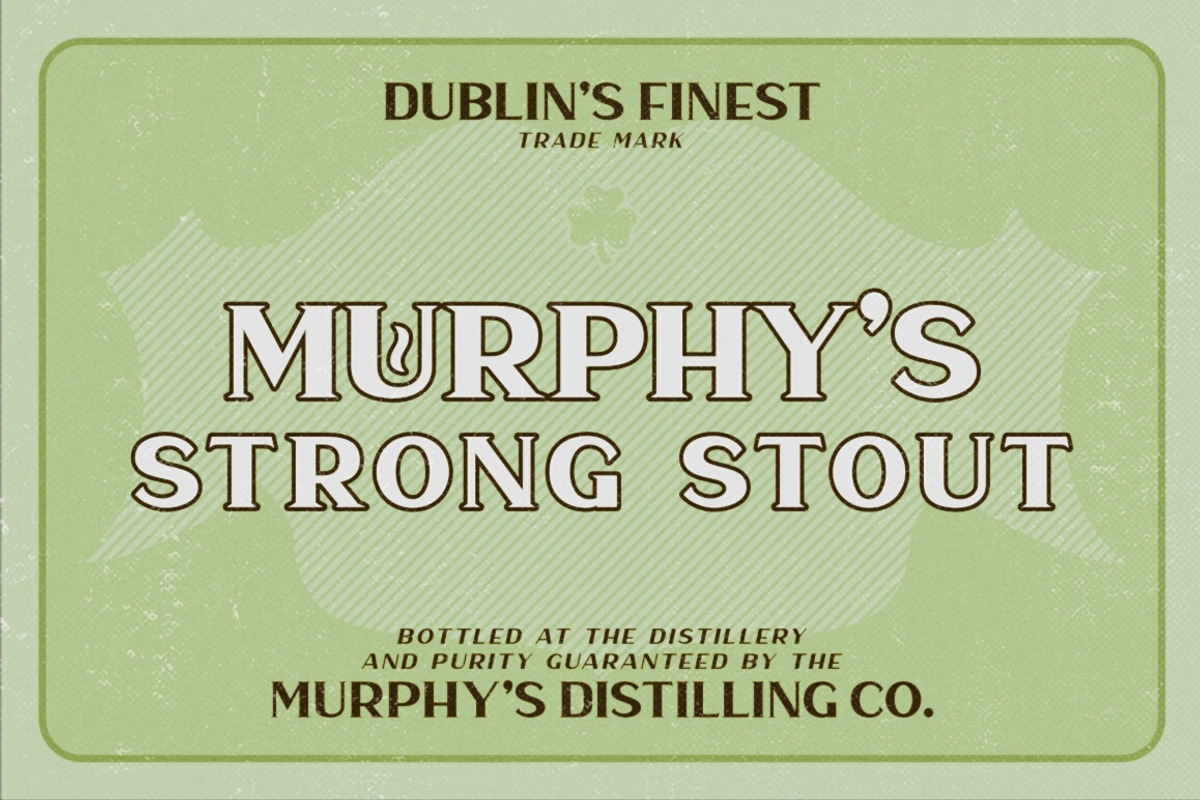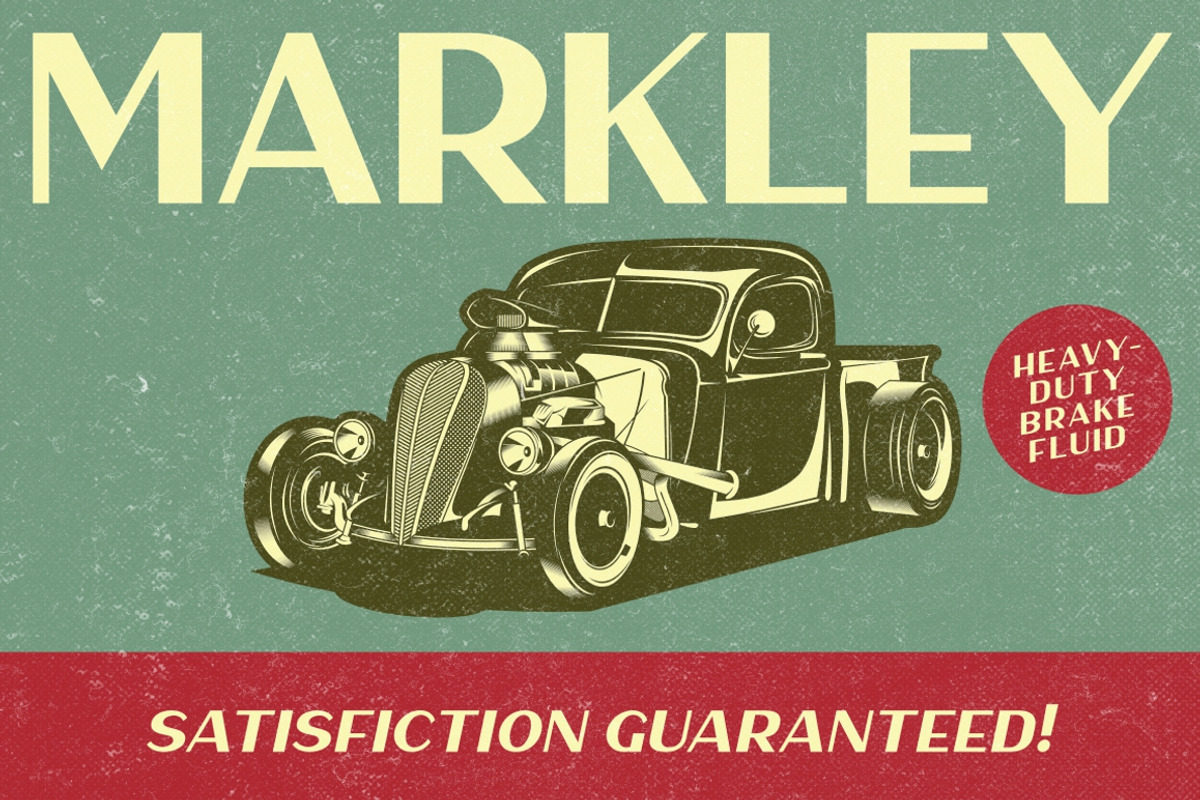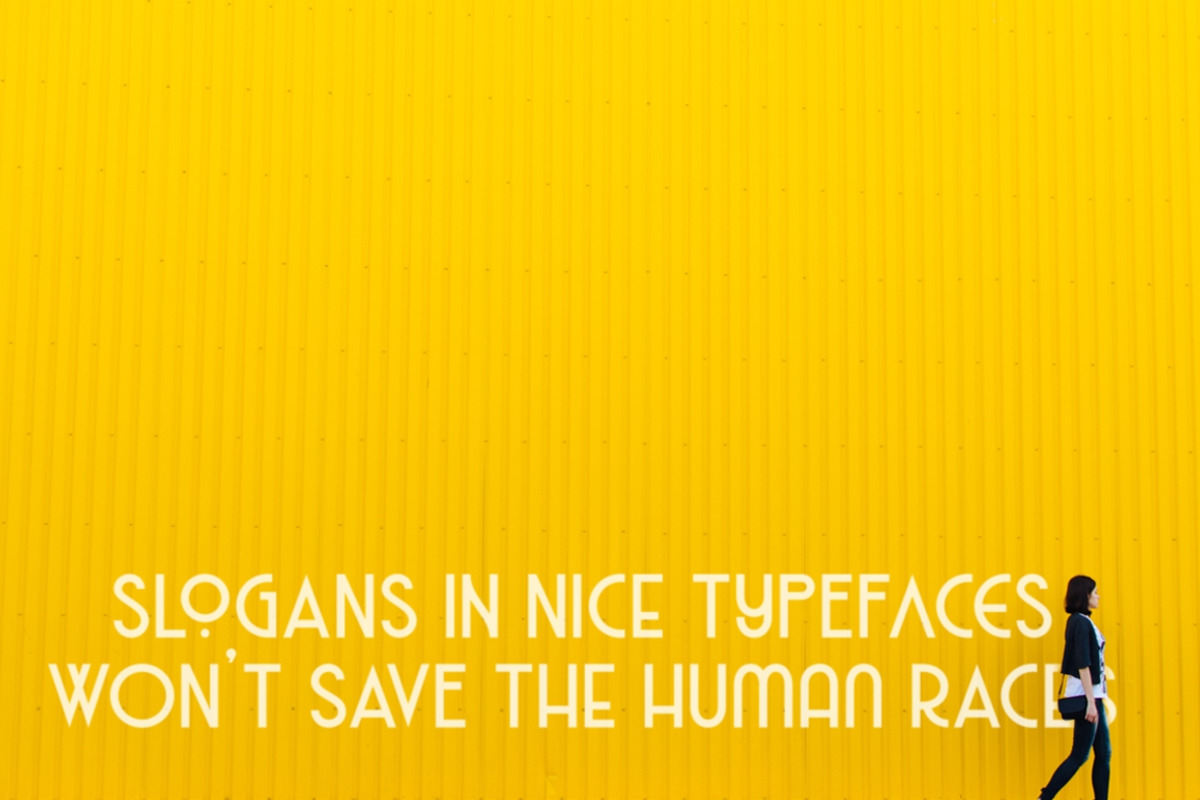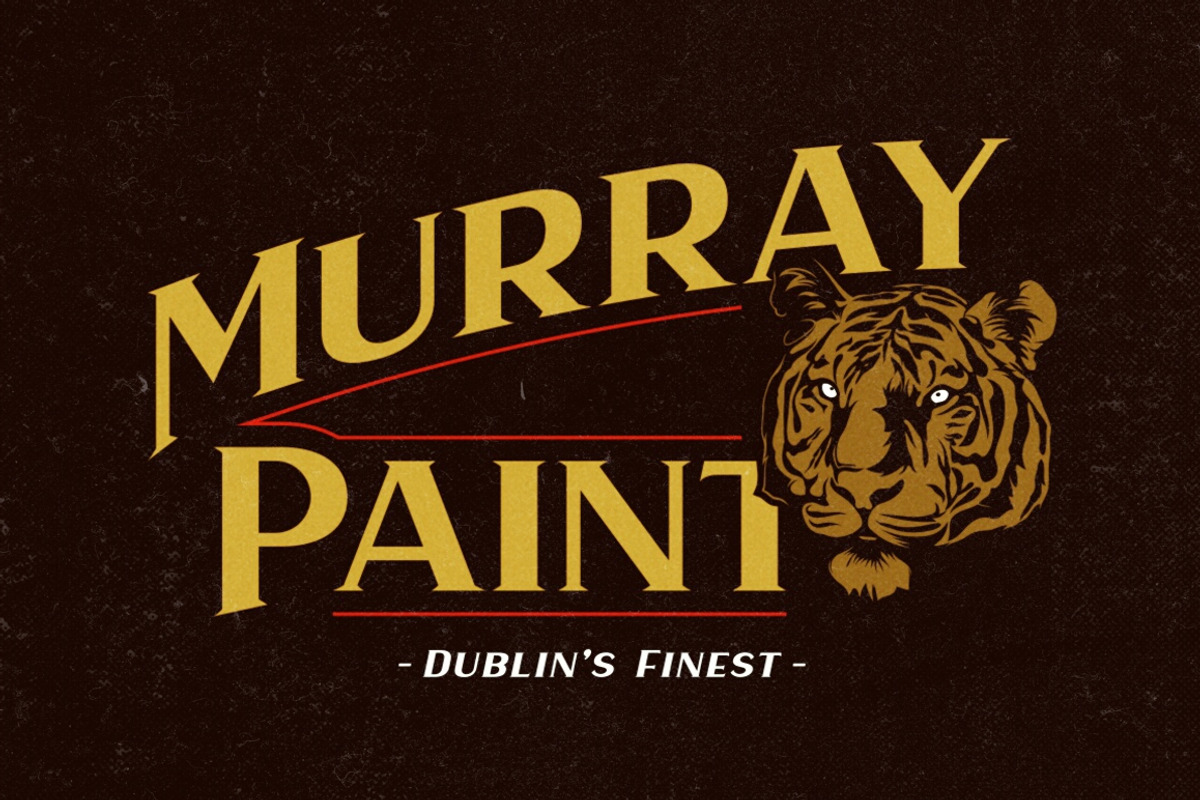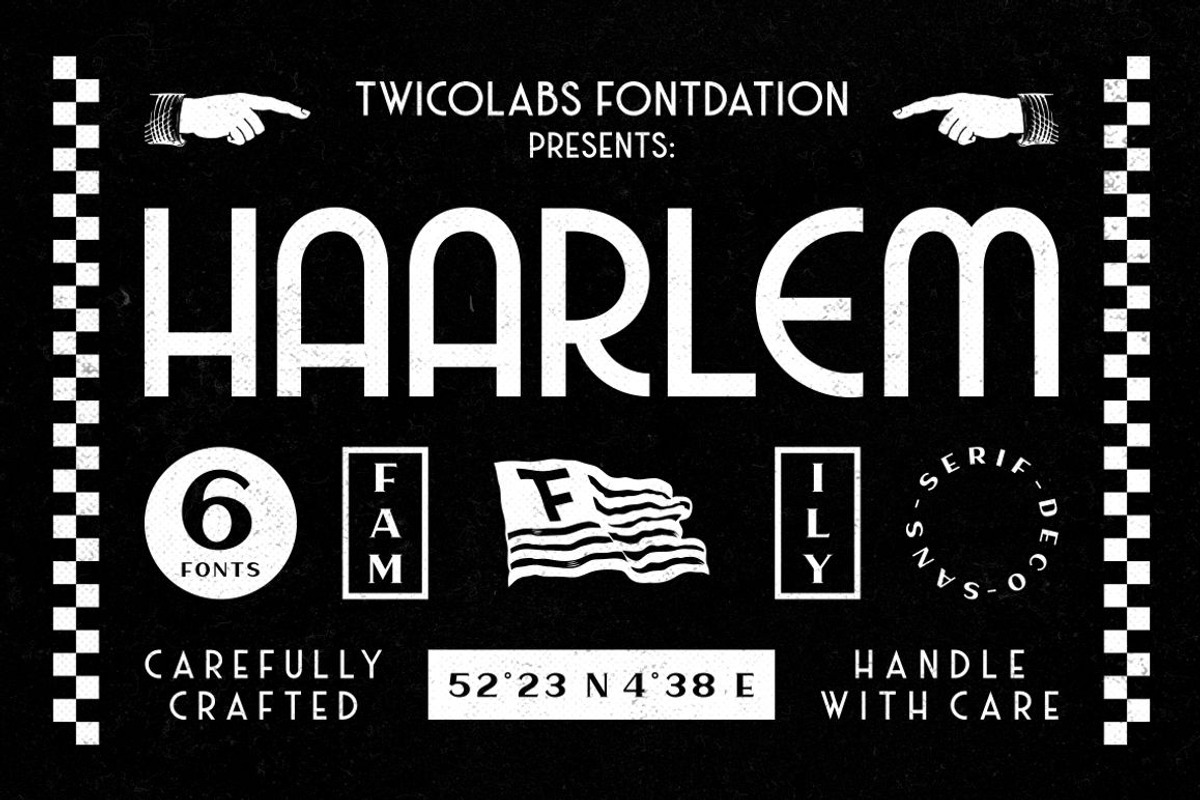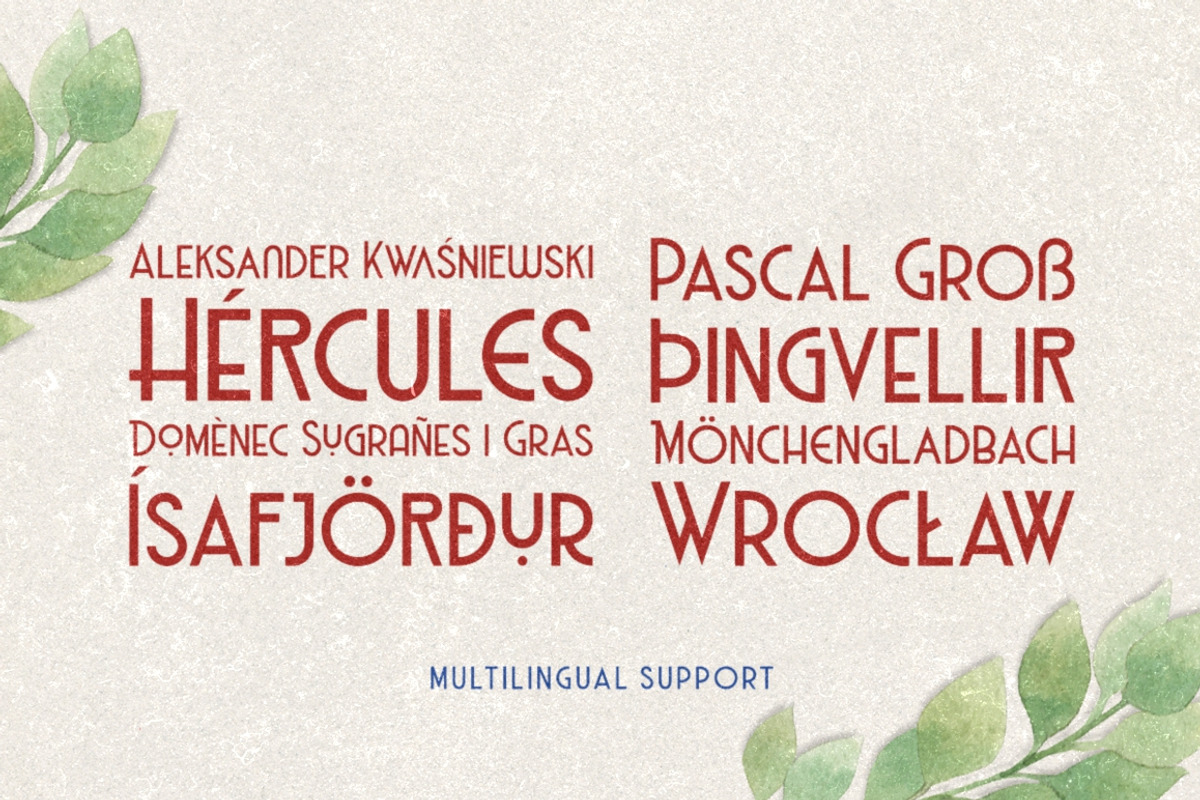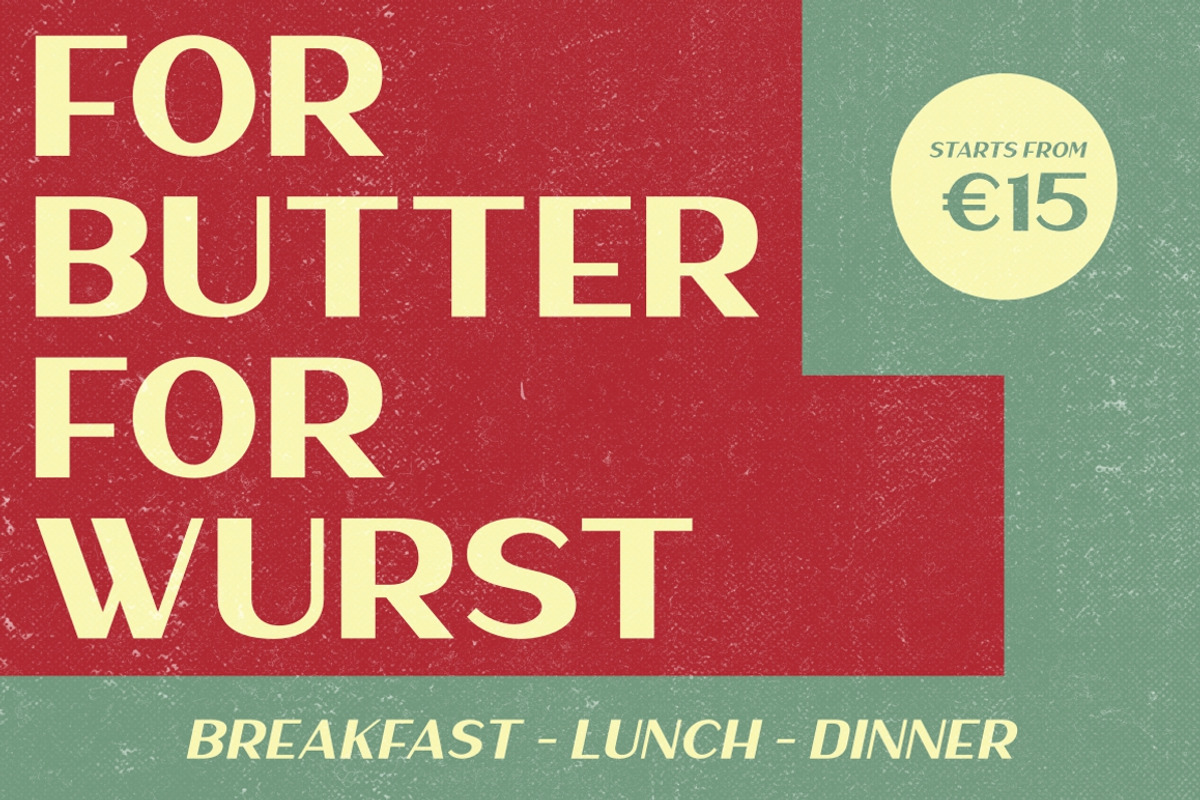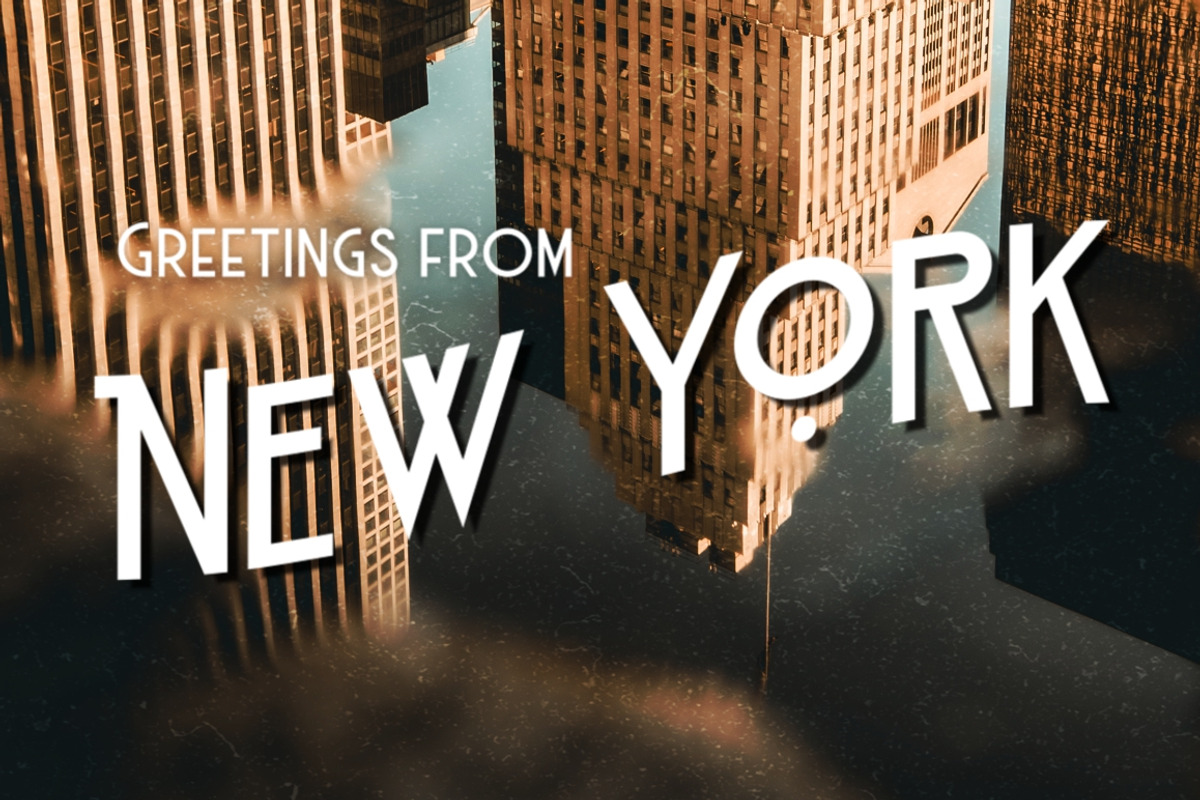
Haarlem Family | 3 in 1 Fonts
Haarlem Family is a pack of our versatile classic/vintage fonts. Inspired by the lettering that are used in various old advertisements. Suits best for any kind of designing projects.
Haarlem Family | 3 in 1 Fonts by Twicolabs Fontdation fits naturally into Branding, posters, packaging, typography.